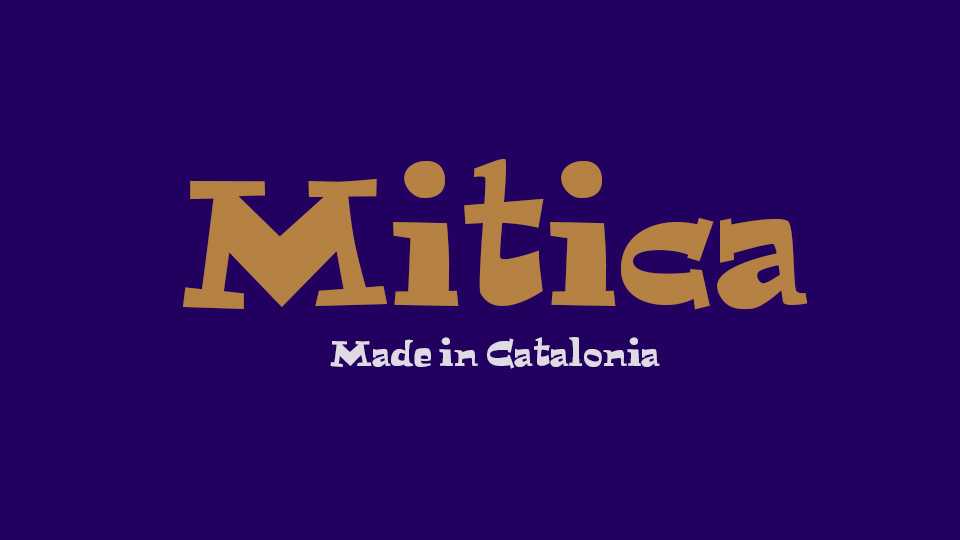
Download Mitica font, a bold and playful display typeface with a cartoon look. Mitica is perfect for posters, headlines, games, kids products, crafts and more.
Designer: Rafael Ferran i Peralta